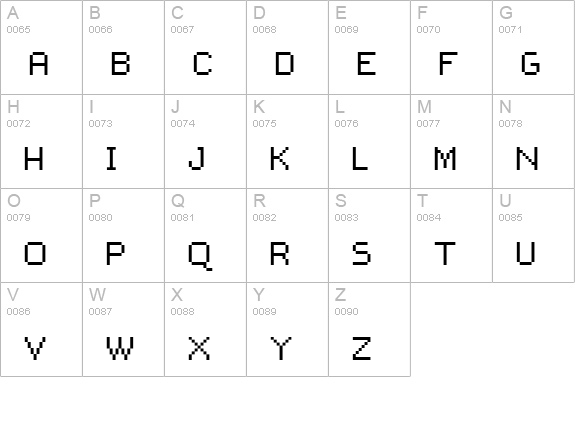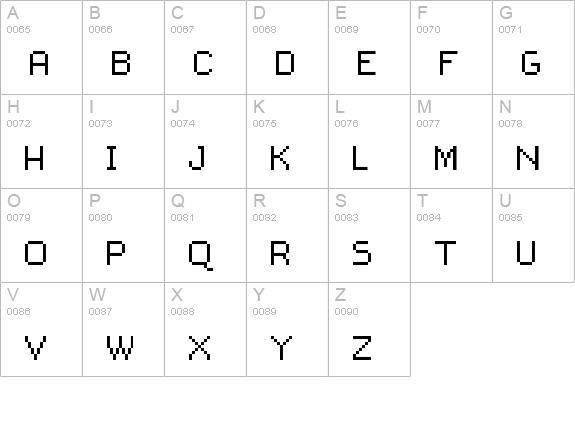
snoot.org pixel10 Font Details
The snoot.org pixel10 font is a visually stunning typeface that is sure to captivate any audience. With its unique and intricate pixelated design, this font adds a touch of retro charm to any project. Whether you are creating a logo, designing a website, or crafting a poster, the snoot.org pixel10 font is the perfect choice to make your text stand out. What sets this font apart is not just its eye-catching appearance, but also the fact that it is absolutely free. Yes, you read that right - this incredible font can be freely downloaded at FontsMarket.com. No need to worry about breaking the bank or compromising on quality, as the snoot.org pixel10 font offers the best of both worlds. With its sharp edges and well-defined characters, this font is ideal for projects that require a bold and modern look. Its pixelated nature adds a sense of nostalgia, making it a great choice for retro-themed designs. Whether you are going for a vintage video game vibe or simply want to add a touch of uniqueness to your project, the snoot.org pixel10 font is here to deliver. Not only does this font offer a visually appealing aesthetic, but it is also highly versatile. It can be used in a variety of design contexts, from digital artwork to print materials. Its legibility ensures that your message will be conveyed clearly and effectively, while its distinct style will make it unforgettable. So why wait? Download the snoot.org pixel10 font for free today at FontsMarket.com and unlock a world of design possibilities. Let your creativity soar and make a bold statement with this extraordinary typeface. Whether you are a professional designer or a casual enthusiast, this font is sure to become a valuable addition to your font collection.